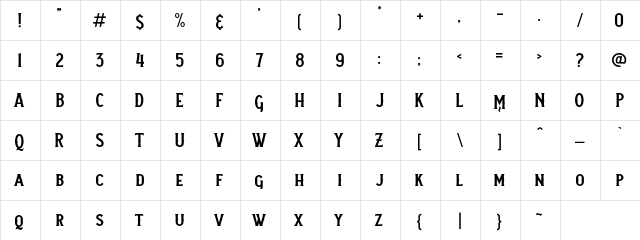
Neue Stanley Regular Font Preview
Neue Stanley Regular
Neue Stanley Regular Font Details
| Foundry | Twicolabs Fontdation |
| Designer | Twicolabs Fontdation |
Design Context for Neue Stanley Typeface
Neue Stanley takes a measured approach to typography — its balanced proportions and neutral character make it a reliable workhorse for both digital and print work.